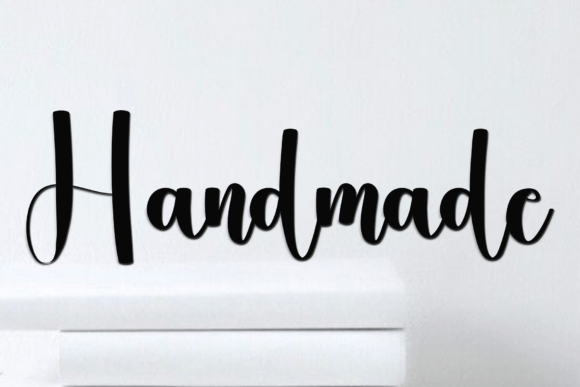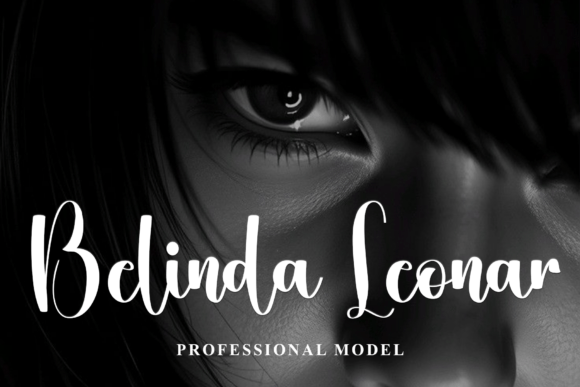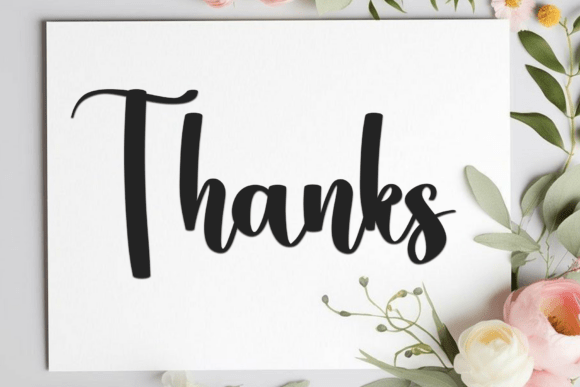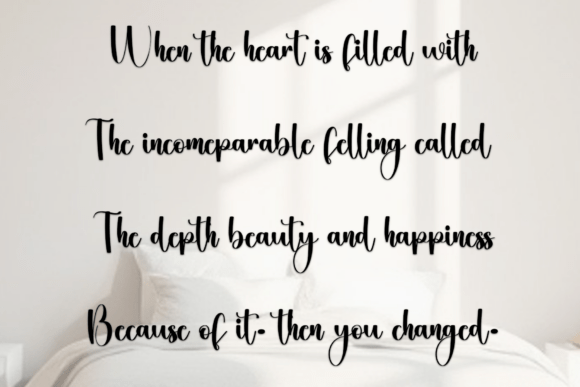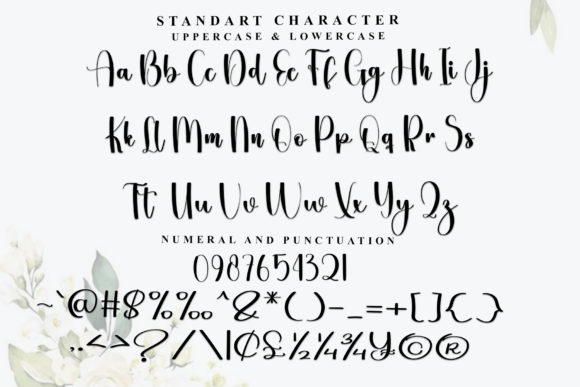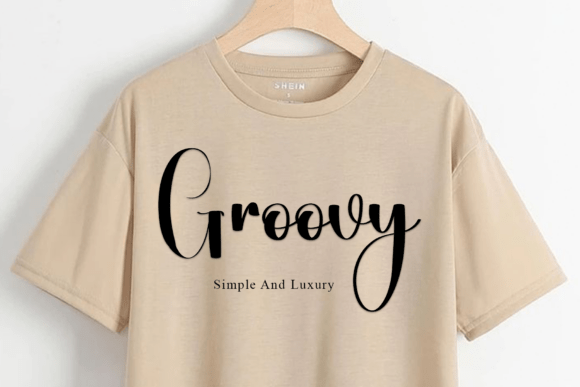
Get Ready to Deck the Halls with the Bestie Birthday Font
As I sat at my desk, sipping hot cocoa and staring at a blank card, I couldn’t help but feel a pang of creative frustration. It was my best friend’s birthday, and I wanted to make it special – but my designs just weren’t feeling festive enough. That’s when I stumbled upon the Bestie Birthday Font, and everything changed.
This merry typeface is more than just a pretty face – it’s a game-changer for designers looking to add a touch of whimsy to their holiday projects. With its decorative elements and PUA encoded glyphs, the Bestie Birthday Font makes it easy to create enchanting designs that will leave a lasting impression. Whether you’re crafting greeting cards, gift tags, or holiday-themed projects, this font is sure to bring a smile to your face and a dash of magic to your typography.
- Unique Characteristics: The Bestie Birthday Font features a playful, cursive script with decorative flourishes, making it perfect for creating a festive and celebratory atmosphere.
Designer Review: Bestie Birthday Font
Overall, I think Bestie Birthday Font is a cute and playful option for birthday invitations or social media posts. Here are some things that really stand out to me: ✨
- Unique and colorful design elements, making it perfect for kids’ parties or themed celebrations.
- Easy to read and understand, even in smaller sizes.
- Good compatibility with various font styles and colors, allowing for customization.
- Not as versatile as some other fonts for more formal or professional use.
- May be too loud or overwhelming for more subdued or minimalist designs.
- Could benefit from additional font styles or weights for more design flexibility.
Overall, I would recommend Bestie Birthday Font for projects that need a fun and lively touch. Just keep in mind its limitations and use it accordingly. It’s a great addition to any designer’s toolkit, especially for projects with a younger audience in mind.
Some common use cases for the Bestie Birthday Font include:
– Creating custom birthday invitations and cards
– Designing social media posts and graphics
– Making custom birthday banners and decorations
For best results, use the Bestie Birthday Font in conjunction with bright and colorful graphics and designs to create a festive and celebratory atmosphere.